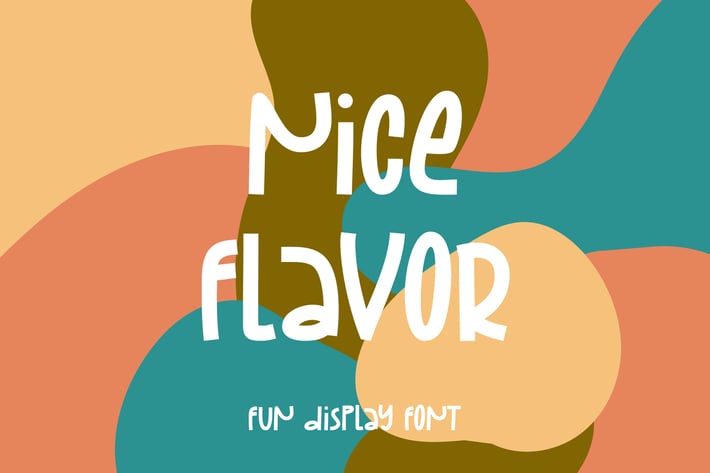
Nice Flavor - Fun Display Font
Nice Flavor is a font created with fun style and to fit to use as branding project designs. It features a unique style and will add unique feel to your upcoming projects. Get inspired by its unique feel and use it to create designs, posters, brand logo, product packaging and many more!